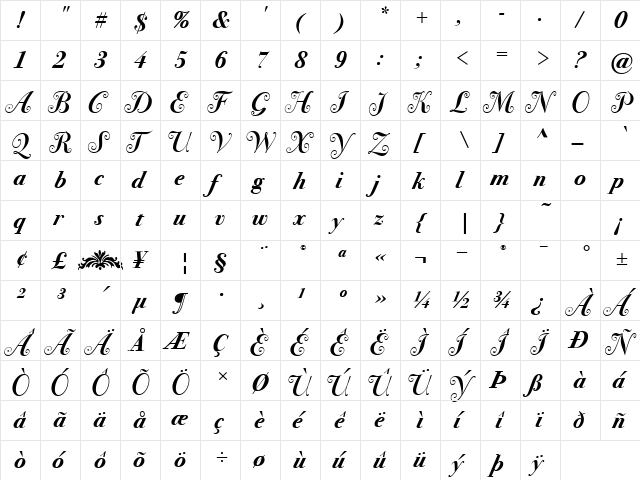
Bodoni SvtyTwoSwa ITC TT BoldIt
Design Context for Bodoni SvtyTwoSwa ITC TT Typeface
Bodoni SvtyTwoSwa ITC TT offers clean, dependable letterforms without strong stylistic allegiance, making it a practical choice for designers who need flexibility. Its bold stroke weight gives it real presence on the page.